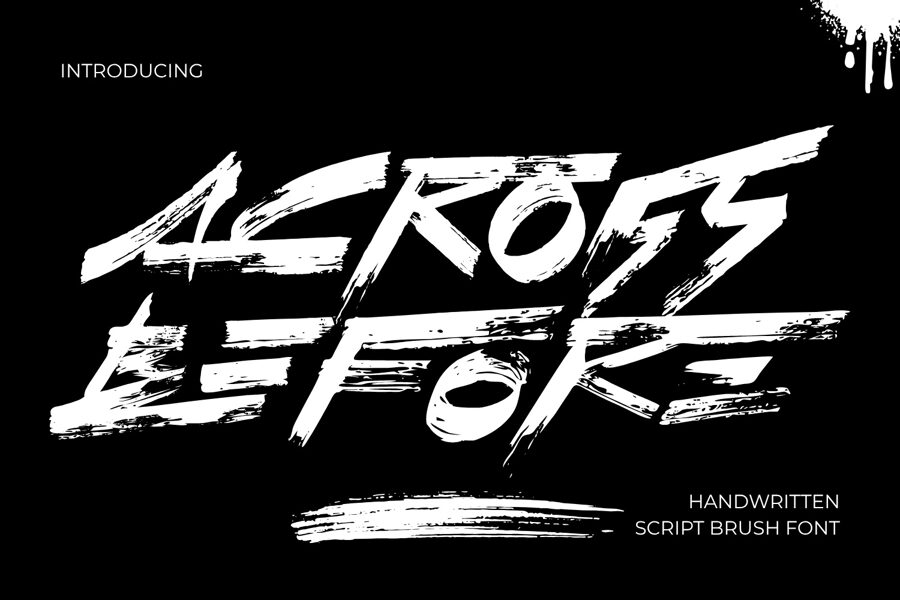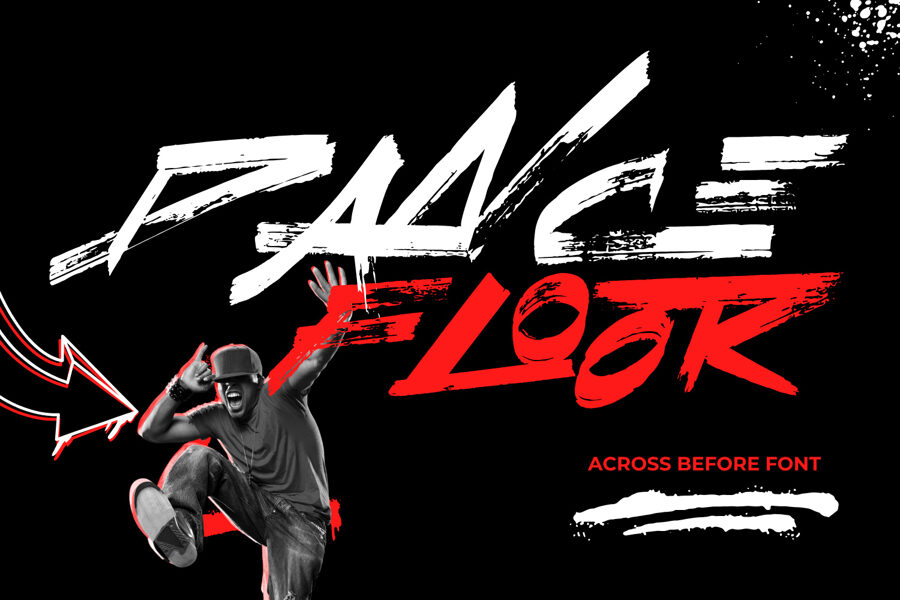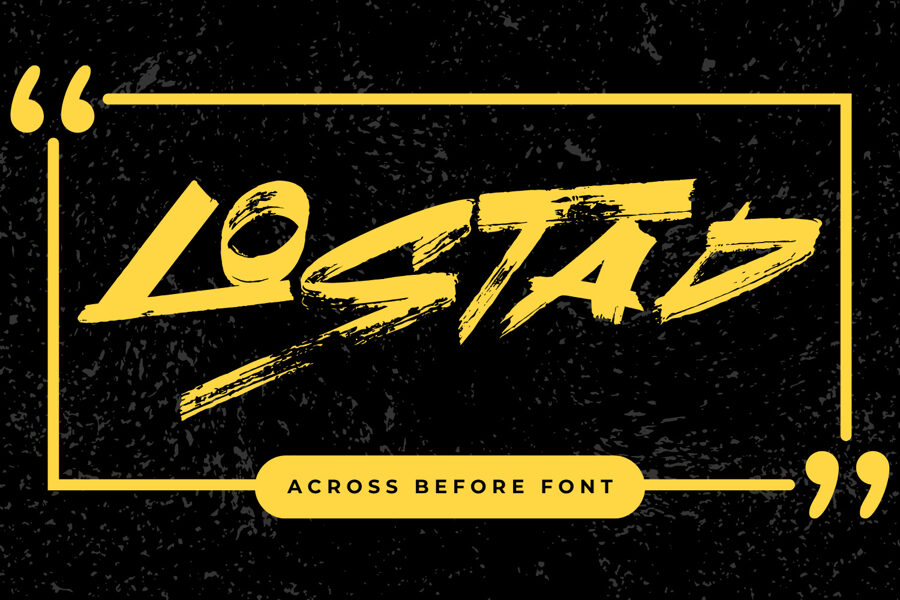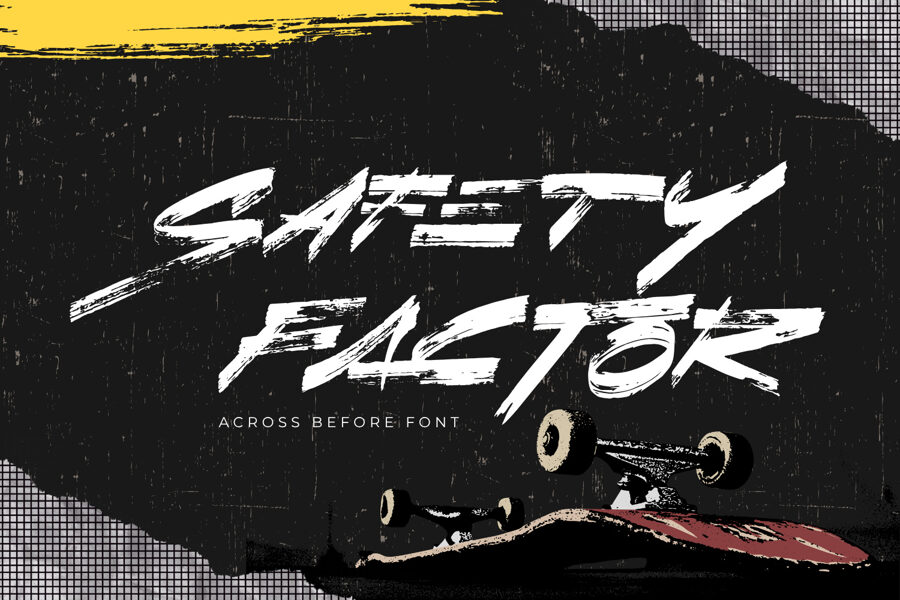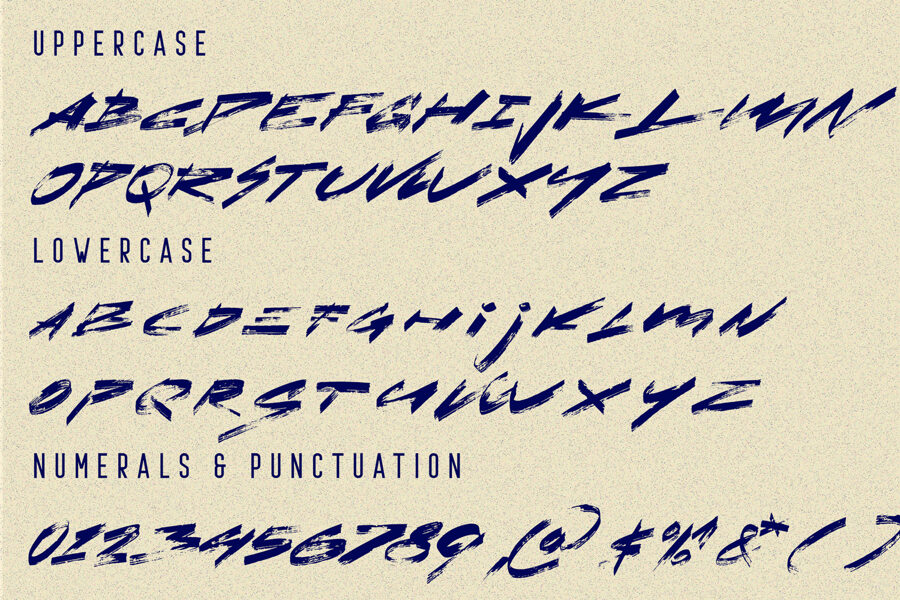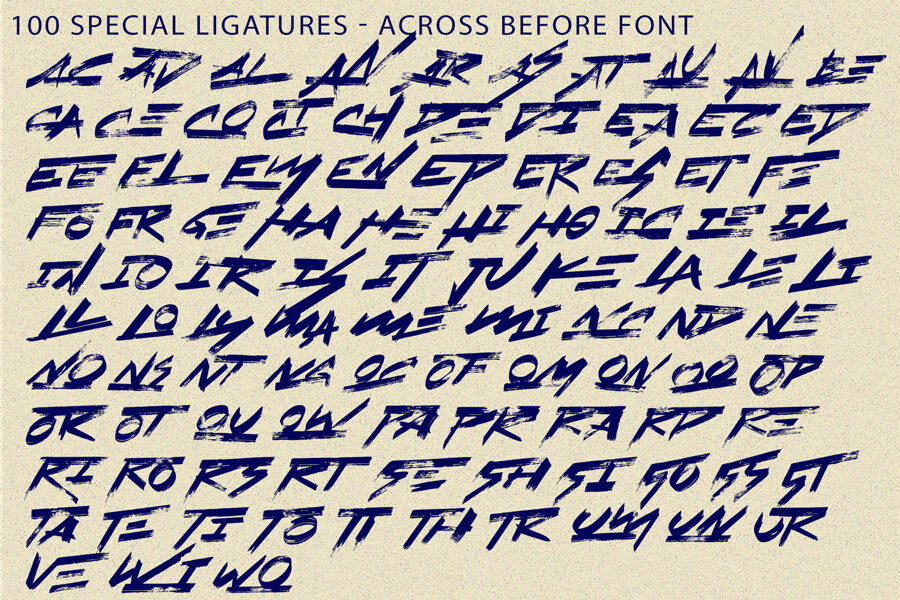
Across Before Font
Across Before is a raw dry-brush display font engineered to inject explosive speed and raw urban intensity into your designs. Crafted with coarse brush textures and aggressive forward-slanted strokes, this typeface captures the adrenaline-fueled motion of action movie titles, Japanese anime artwork, extreme sports, and underground street culture.
Every letterform in Across Before features authentic dry-stroke scratches and razor-sharp terminals that simulate fast, expressive brushwork. Built for maximum visual dominance, it commands immediate attention—making it the ultimate choice for sports branding, esports logos, streetwear fashion lines, cyberpunk concepts, music artwork, and cinematic posters.